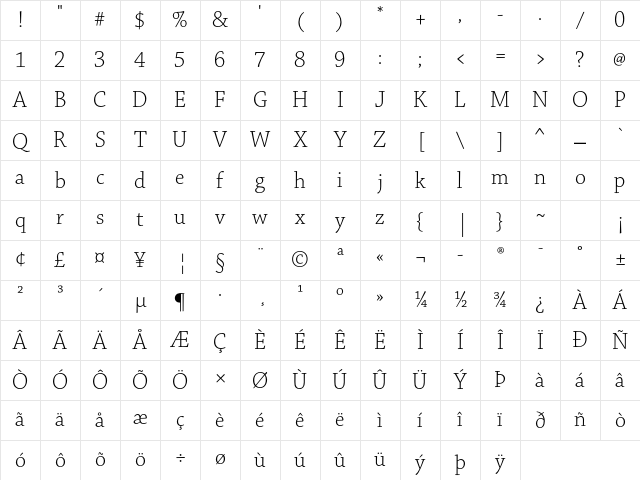
Chaparral Pro Light Subhead Free Font
Chaparral Pro Light Subhead
Style: Light Subhead
Designer: Carol Twombly
Complete Chaparral Pro Light Subhead glyph index. Displaying only characters natively supported by Chaparral Pro Light Subhead font.
Design Context for Chaparral Pro
Chaparral Pro is a composed and adaptable typeface that performs quietly and consistently across a wide range of design contexts. Its slender proportions lend an understated elegance to any composition.